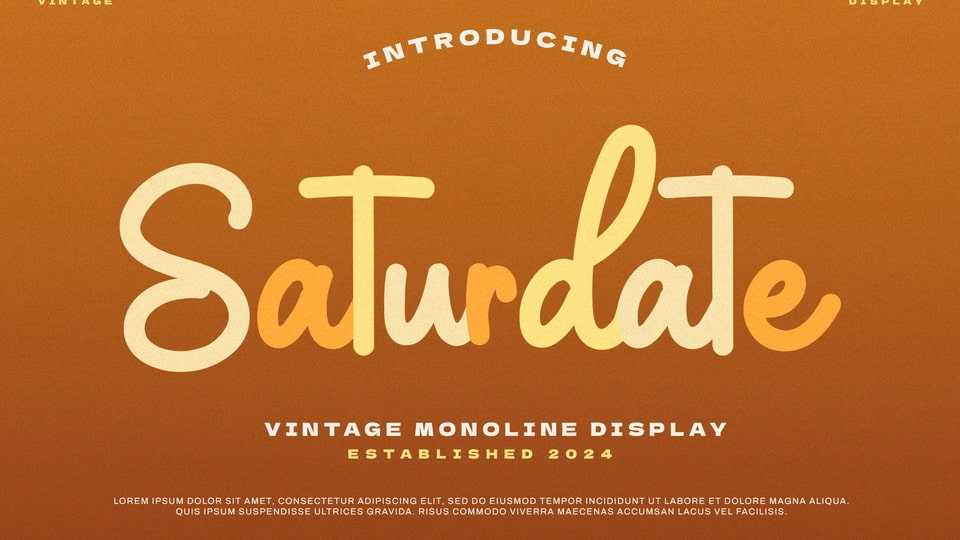
Download Saturdate font, a monoline handwritten typeface that makes this font look elegant, natural, and perfect for any awesome projects that need an organic taste.